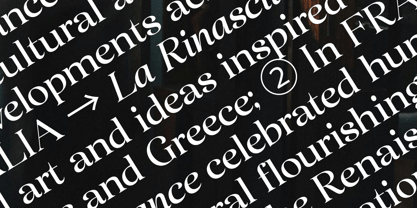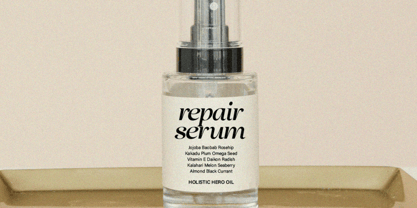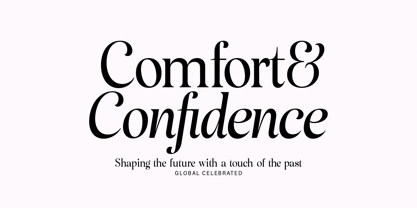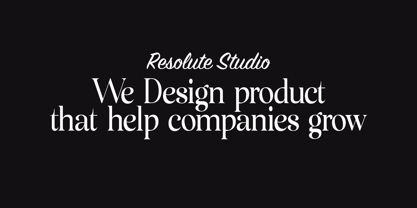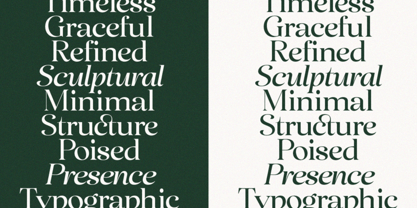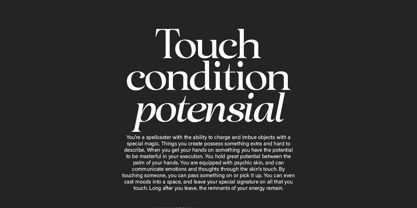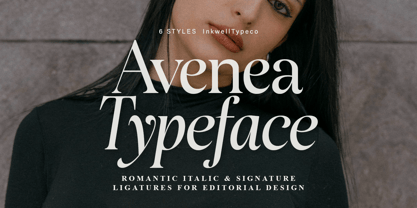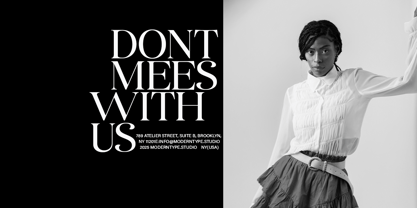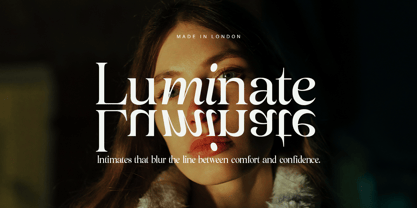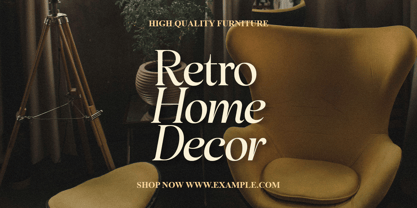
Avenea
by InkwiseTypeCo
The Avenea Font Family was designed by Putra Ananda and published by InkwiseTypeCo. Avenea contains 6 styles and family package options. More about this family
Avenea is a modern serif crafted with emotion, elegance, and clarity in mind. With six distinctive styles, it gracefully balances soft romantic italics and structured monospaced forms — making it a versatile voice for stories that matter.
Each curve and contour is thoughtfully designed to speak with warmth and confidence, perfect for editorial spreads, brand identities, or any creative work that seeks a personal yet polished tone. Avenia is more than just a typeface — it’s a feeling, a rhythm, a quiet statement of beauty.
Complete with elegant ligatures, multilingual support, and alternative glyphs, Avenia invites you to express with both precision and heart.